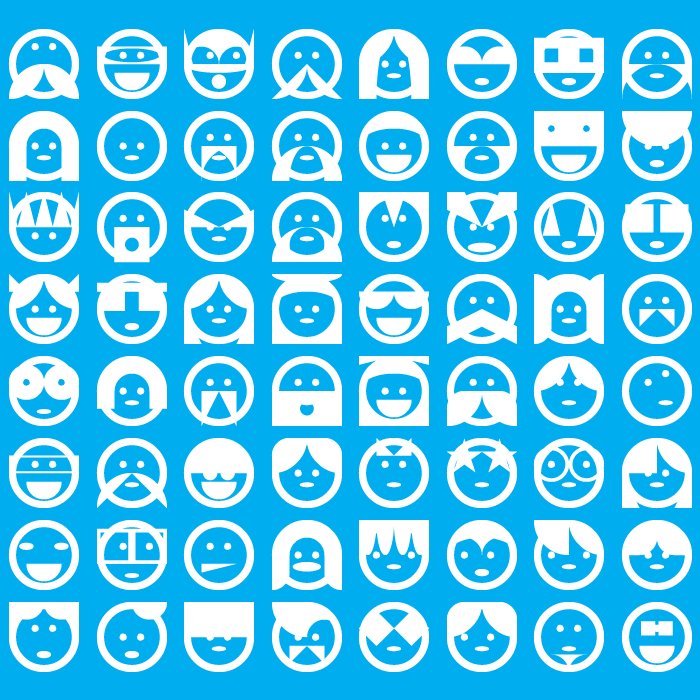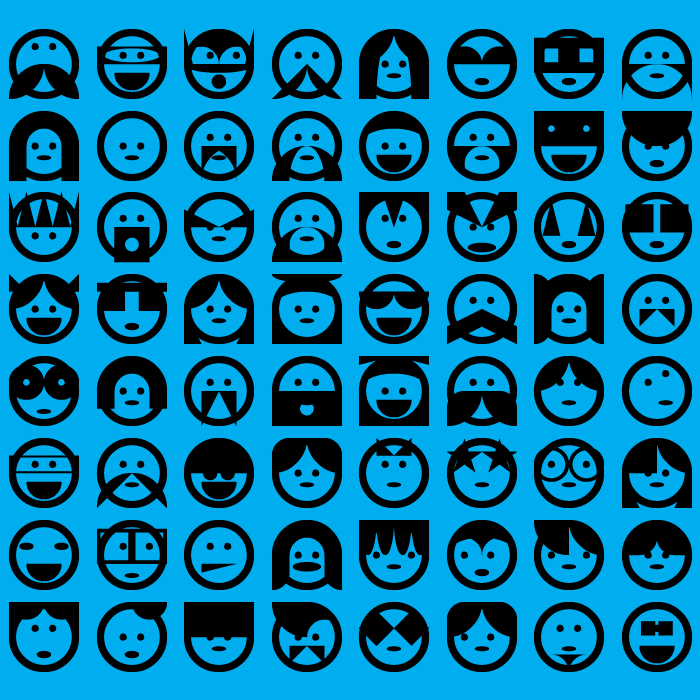
FFF (Fun face font)
Love it! The 'staches are great. 10/10
The third one is Fontomas, obviously
your font has a really strong meaning to me
Congratulations on the TP *\°u°/*
What a grear collection of characters.
Instant cutie with only four bricks!
Fantastic collection! The one with stars in the eyes it's me.
DARKER DARKER YET DARKER
That's a very funny typeface. I love the name of the font.
Simply excellent.
Thanks everyone! The challenge on this one was to visually keep every character within outlines of a single brick. So lots of composting, stacking and nudging. I have made it cloneable if anyone wants to play around with it and have a go at extending the set.